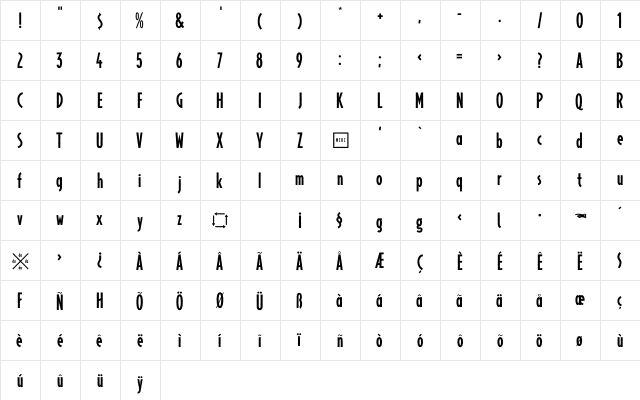
MerzIrregular Normal
Design Context for MerzIrregular Typeface
MerzIrregular is a composed and adaptable typeface that performs quietly and consistently across a wide range of design contexts.